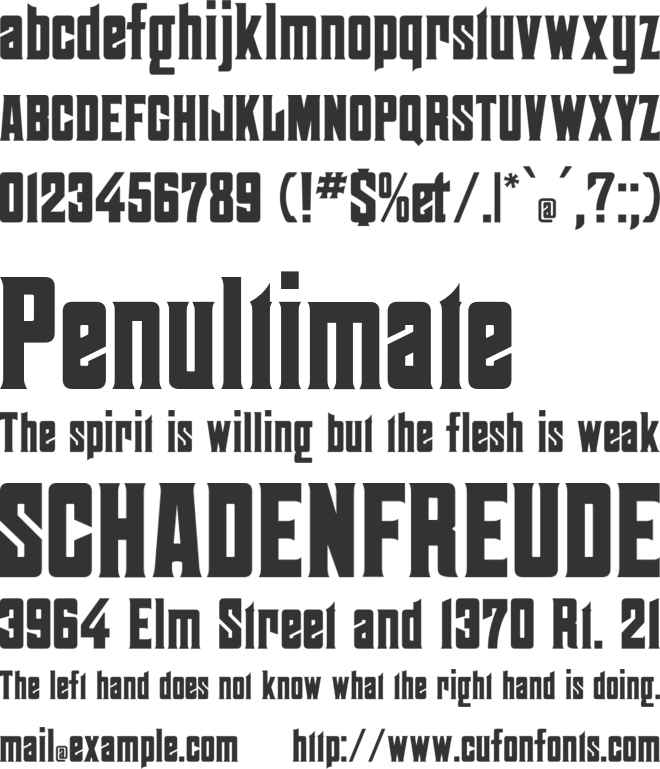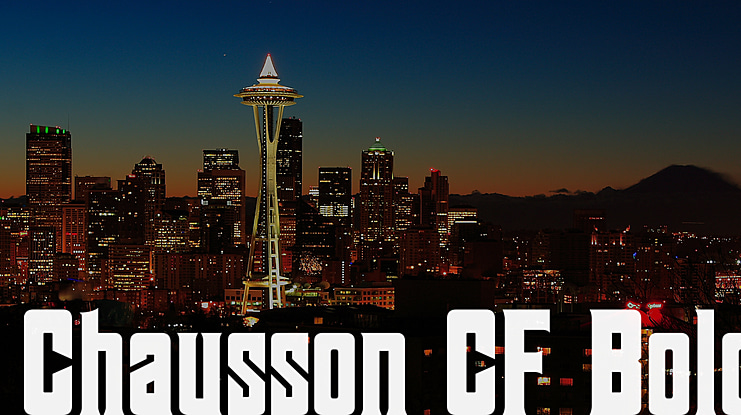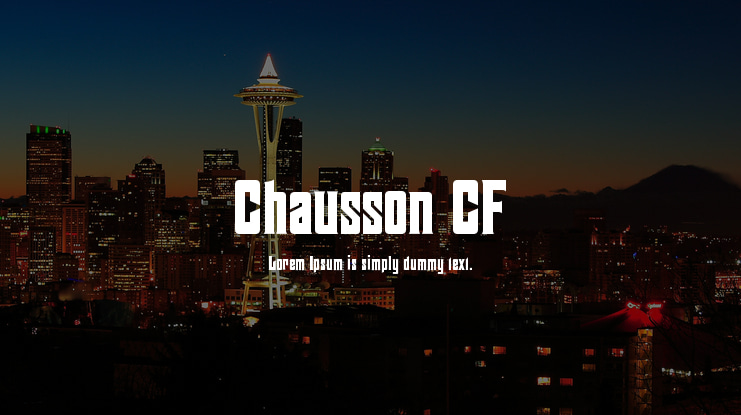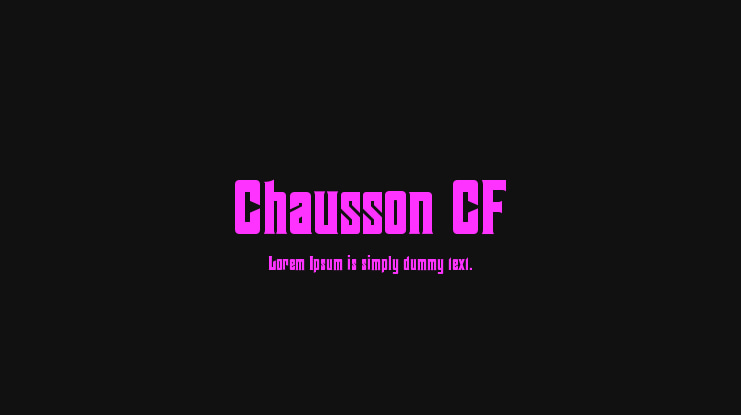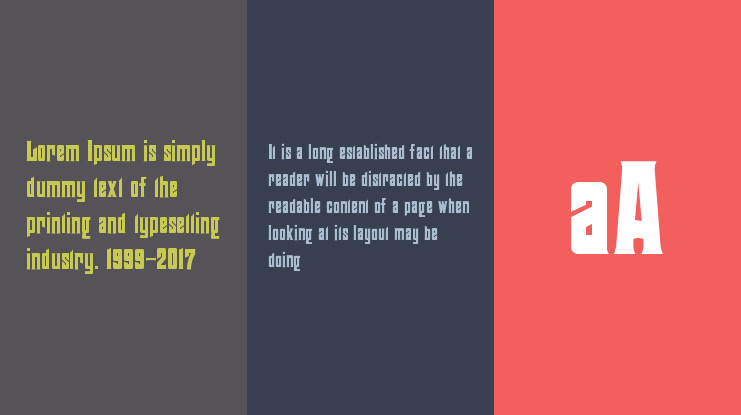
Chausson CF Font
Chausson CF is my revival, completely redrawn, of Othello, a typeface I found in Popular Designs for Artistic Printers (Central Type Foundry, St. Louis, 1892). Although the hype on the bottom of the sample page for Othello reads, Original Design of the Central Type Foundry, it appears to me to be a metal remake of an earlier wood type design in Alphawood, page 95. Nonetheless, it is a strong and bold font suitable for poster, advertising, logo, headline, signage, greeting card design and the like. I followed Centrals example and placed swashes on several more glyphs as alternates.
Chausson CF has 452 glyphs including several dozen discretionary glyphs. Chausson CF supports Afrikaans, Albanian, Asu, Basque, Bemba, Bena, Bosnian, Chiga, Colognian, Cornish, Croatian, Czech, Danish, Dutch, English, Estonian, Faroese, Filipino, Finnish, French, Friulian, Galician, Ganda, German, Gusii, Hungarian, Icelandic, Inari Sami, Indonesian, Irish, Italian, Jola-Fonyi, Kabuverdianu, Kalenjin, Kinyarwanda, Latvian, Lithuanian, Low German, Lower Sorbian, Luo, Luxembourgish, Luyia, Machame, Makhuwa-Meetto, Makonde, Malagasy, Malay, Maltese, Manx, Morisyen, North Ndebele, Northern Sami, Norwegian Bokmål, Norwegian Nynorsk, Nyankole, Oromo, Polish, Portuguese, Romanian, Romansh, Rombo, Rundi, Rwa, Samburu, Sango, Sangu, Scottish Gaelic, Sena, Shambala, Shona, Slovak, Slovenian, Soga, Somali, Spanish, Swahili, Swedish, Swiss German, Taita, Teso, Turkish, Turkmen, Upper Sorbian, Vunjo, Welsh, Western Frisian, Wolof, Zulu.
I named Chausson CF after the 19th century French composer, Ernest Chausson (1855-1899).